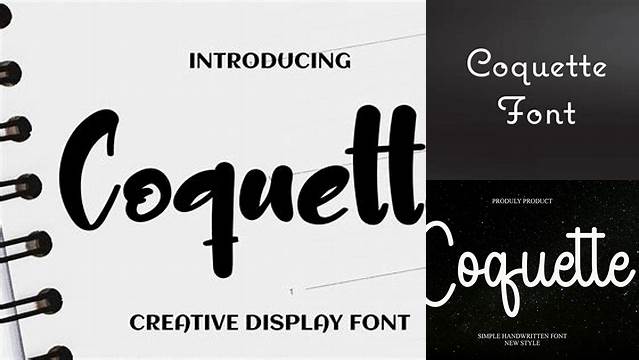
Coquette Fonts In Adobe: A Stylish Guide
Hey guys! Today, we're diving into the sweet and romantic world of coquette fonts and how you can use them in Adobe products. If you're into that ultra-feminine, dreamy aesthetic, you're in the right place. We'll explore what makes a font "coquette," where to find these lovely fonts, and, most importantly, how to seamlessly integrate them into your Adobe workflow. Get ready to sprinkle some elegance and charm into your designs!
What Exactly Are Coquette Fonts, Anyway?
Alright, so you keep hearing about coquette fonts, but what exactly are they? In a nutshell, coquette fonts are all about embodying a delicate, graceful, and undeniably feminine vibe. Think of them as the typographic equivalent of lace, ribbons, and pearls. They often feature flowing curves, elegant serifs, and a sense of whimsy that's perfect for projects where you want to evoke romance, softness, or a touch of vintage charm. These fonts often have thin strokes, delicate details, and sometimes even include decorative elements like hearts, flourishes, and swashes to enhance their romantic appeal. They are designed to capture the essence of femininity and create a visually stunning effect.
Coquette fonts are not just about aesthetics; they are about conveying a feeling. They speak volumes, and they whisper stories of timeless elegance and charm. They are the perfect fonts for projects where you want to create a sense of tenderness and softness. Their design creates a visual experience, engaging the audience and inviting them to immerse themselves in the narrative. These fonts have found their place in various design fields such as fashion, beauty, wedding invitations, and branding. They've become a key element in building a brand identity that resonates with the audience, offering a sense of intimacy and refinement.
These fonts often evoke a sense of nostalgia, harking back to the romantic eras. This gives them an evergreen appeal, a sense of lasting style that transcends trends. Whether you're designing a greeting card, crafting a social media post, or building a website, a coquette font can be a great tool to add a unique visual touch. You can create designs that are both aesthetically pleasing and evoke specific feelings. They're also great for adding a touch of personality to your work, as these fonts are really expressive.
Key Characteristics of a Coquette Font
- Flowing Curves: The defining features, these help give the font its graceful appearance.
- Elegant Serifs: Serifs that are delicate and refined add a touch of elegance.
- Whimsical Elements: Swashes, flourishes, and heart-shaped details, which give a dreamy touch.
- Thin Strokes: They create a sense of airiness and lightness.
- Legibility: Despite their decorative nature, they need to remain readable.
Finding the Perfect Coquette Fonts for Adobe
Coquette fonts are not just about beauty, they are about usability and adaptability. Consider the project you're working on and choose a font that suits the context. A font for a wedding invitation will be different from one for a fashion blog. You can experiment with various styles, testing them with your design elements to ensure a seamless integration. Always make sure your font is readable and conveys the intended message. The process of selecting and incorporating coquette fonts into your designs is an important creative exercise. You need to take your time, experiment, and enjoy the creative process, resulting in the best design results. These font-finding platforms not only serve as a source for fonts, but also as a creative community, providing inspiration and allowing designers to learn from each other. You can find numerous resources to enhance your design skills. You can explore various design styles, learn about typography, and get creative ideas from others. It will help you improve your design abilities.
Where to Look for Coquette Fonts
- Google Fonts: Free and open-source fonts, good for a quick and easy start.
- Creative Market: A marketplace with a wide selection of paid fonts and design resources.
- Envato Elements: Subscription-based service for unlimited font downloads.
- MyFonts: A large marketplace with thousands of fonts from various foundries.
- Behance/Dribbble: Browse the portfolios of designers to discover fonts they've used.
Installing Your Coquette Fonts in Adobe Products
Once you've found your favorite coquette fonts, the next step is to install them so you can use them in your Adobe projects. The installation process is pretty straightforward, regardless of the Adobe program you're using. The general steps involve downloading the font files (usually in .ttf or .otf format) and installing them on your operating system. After installing, you can open your Adobe program and find the fonts in the font menu. If the font doesn't appear right away, try restarting the program. This ensures that the new fonts are properly recognized and accessible. You can also check your operating system's font settings to ensure the fonts are installed correctly. This will allow you to avoid any potential technical issues. You can also ensure that the fonts are available in all your design projects. With this knowledge, you can start experimenting with your new fonts. Your creativity will be boosted, as your new design possibilities are unlimited. The use of coquette fonts adds a unique visual touch that captures your audience.
Coquette fonts are not just about finding and installing them; they are about creating a harmonious blend between the chosen font and your design elements. Proper installation guarantees that the fonts render correctly. This lets you focus on your creative vision, without having to worry about technical complications. This means you can create designs that meet your design requirements and enhance your design ideas. You should also consider the character sets and ligatures of the fonts. Ensure that the font supports the characters you need to use and that any special characters are available. This is particularly important if your designs involve different languages, symbols, or special characters. Ensure the fonts are properly integrated to elevate your design projects.